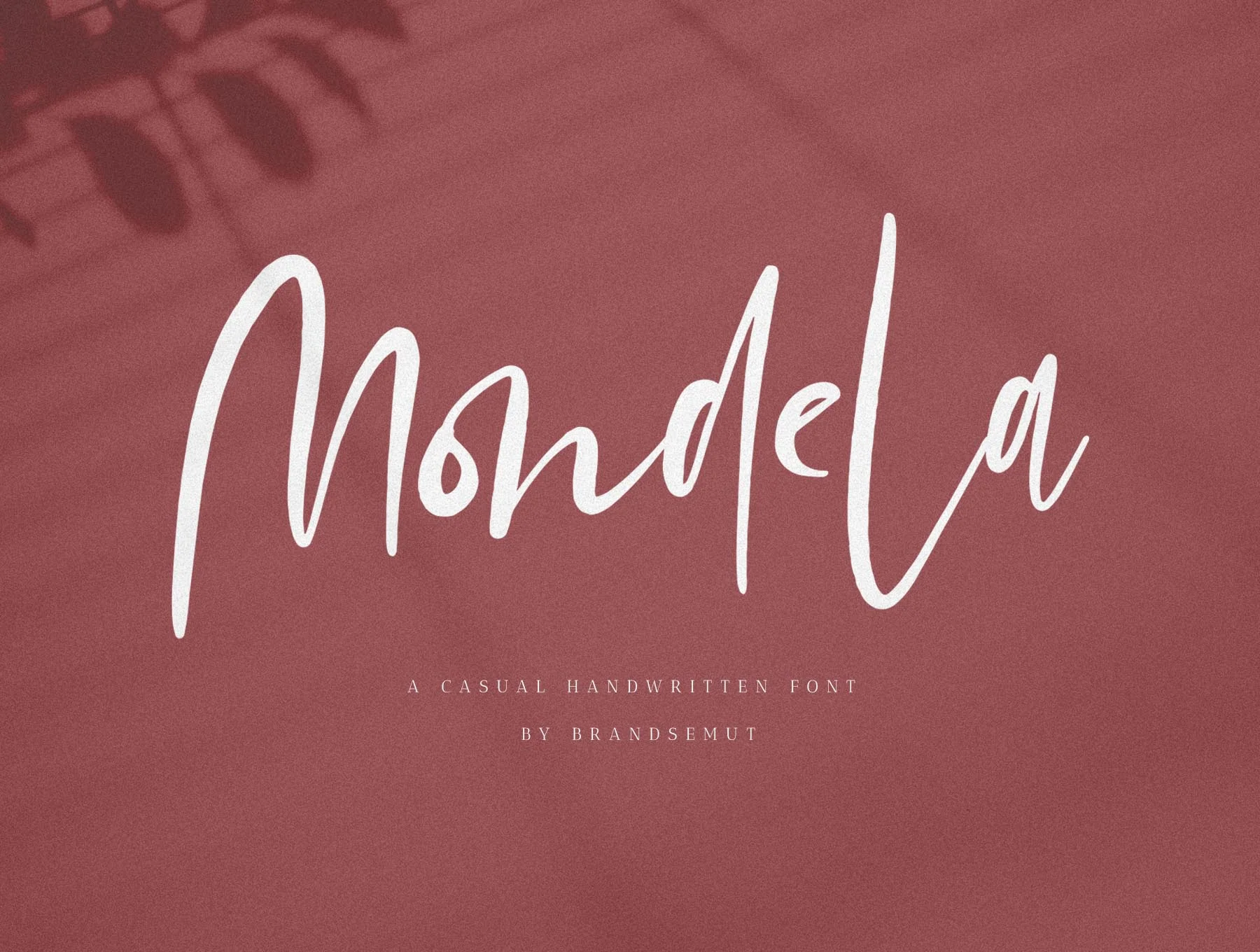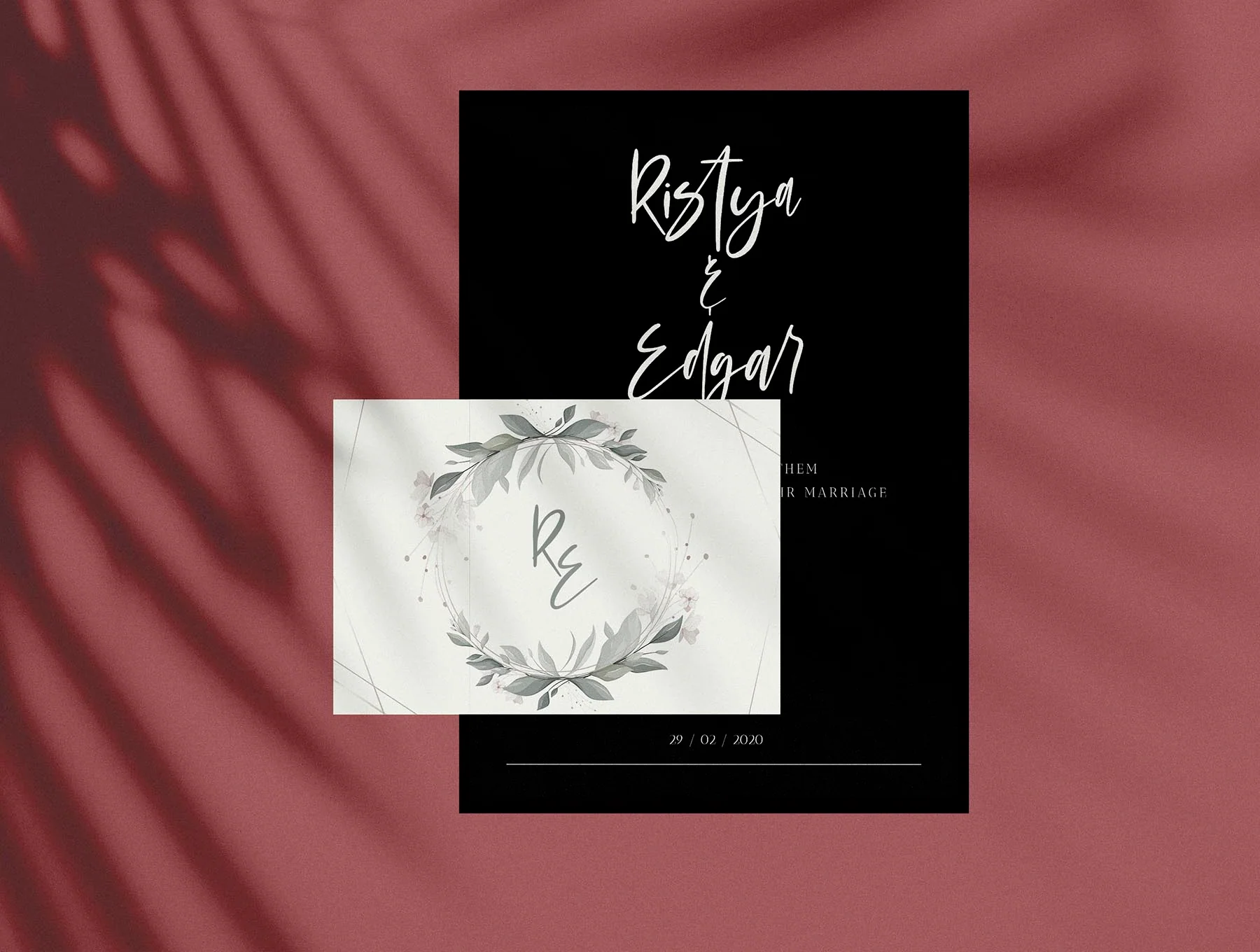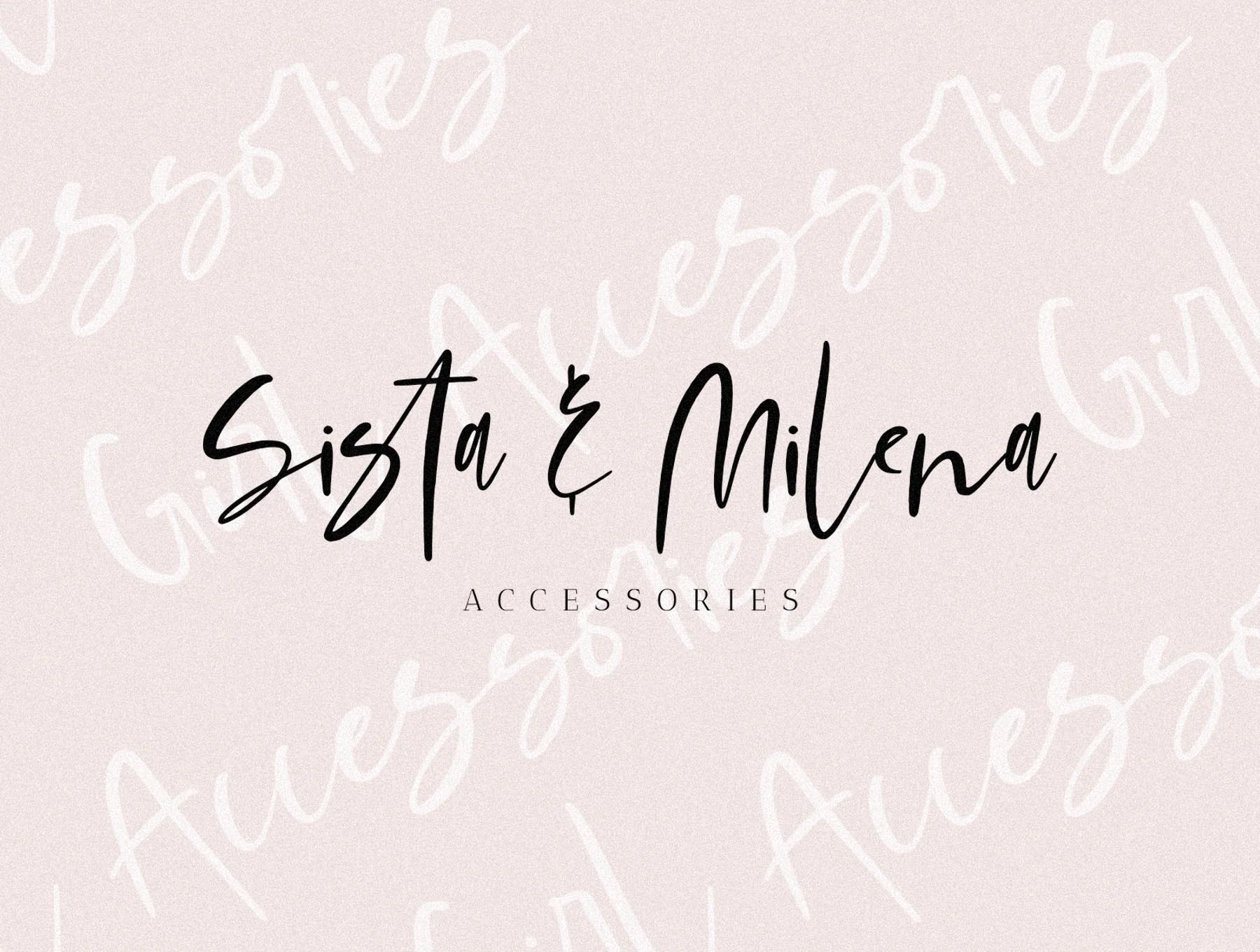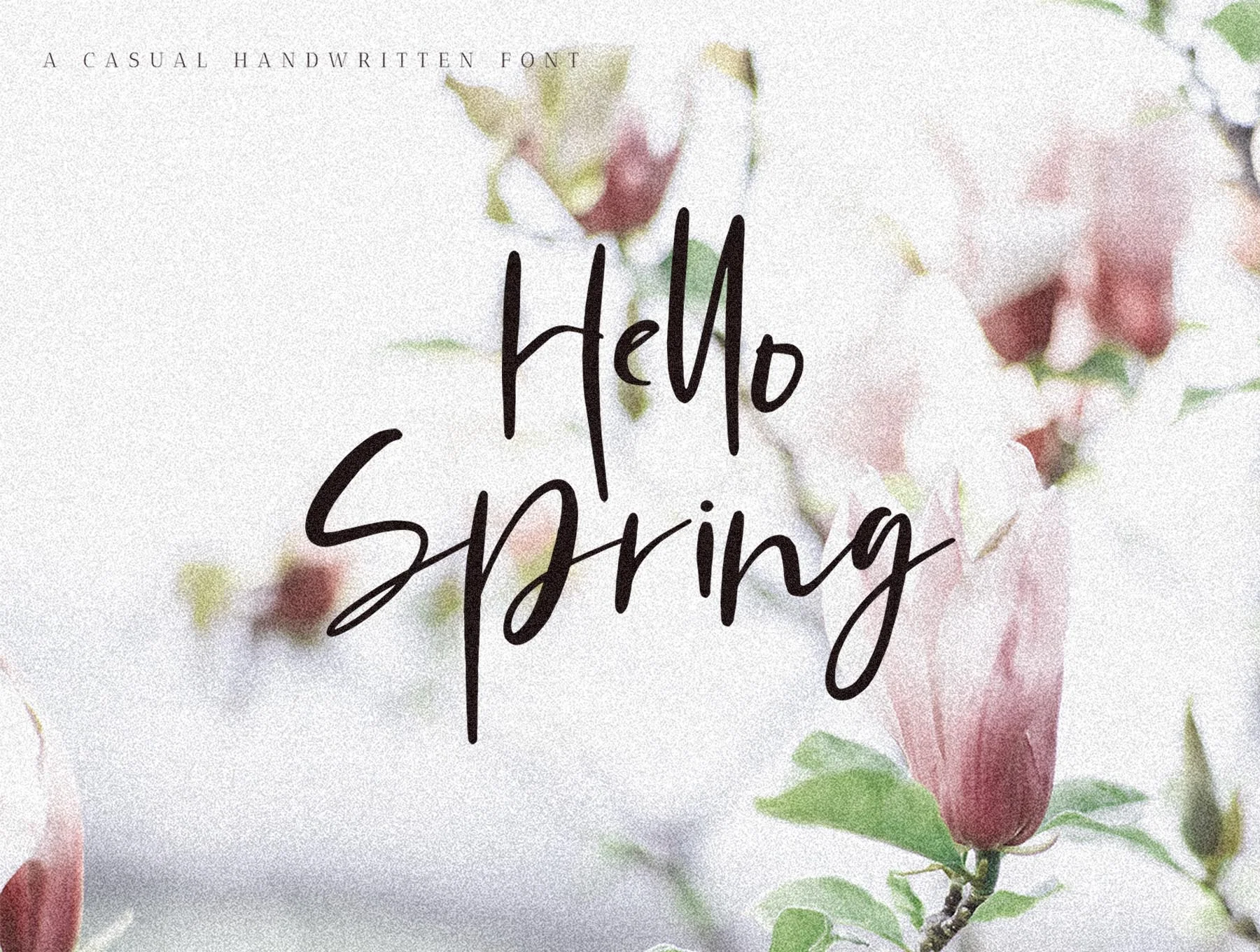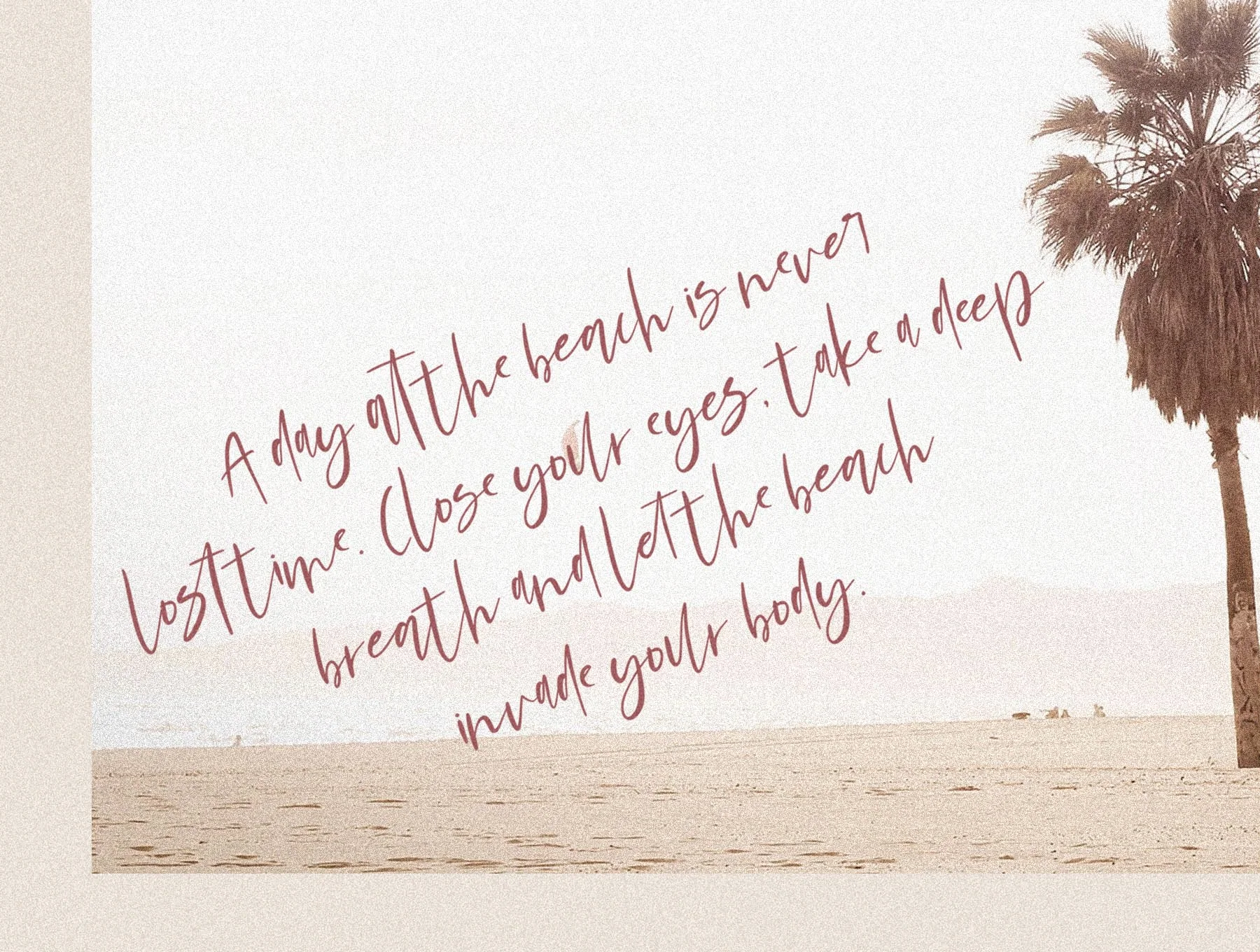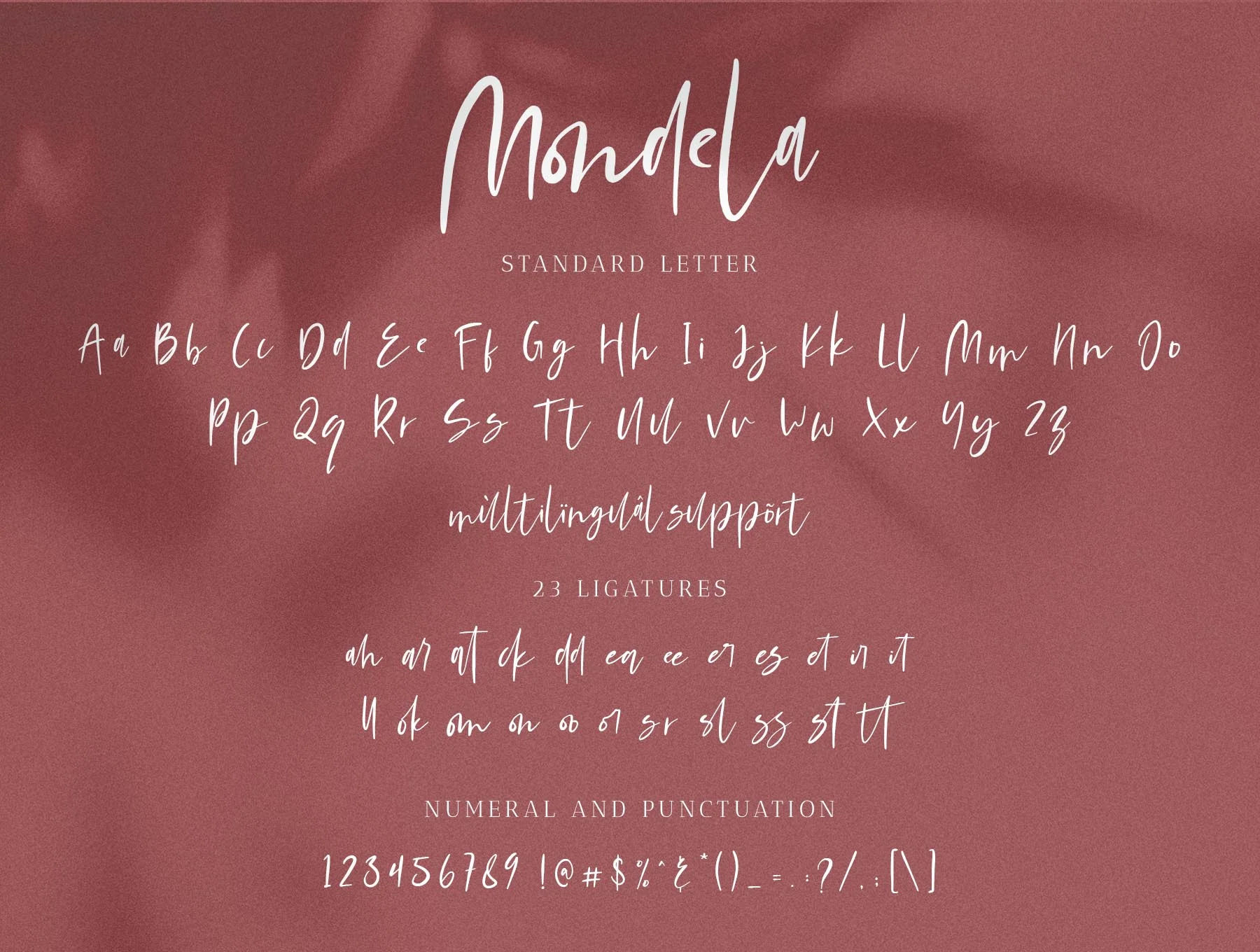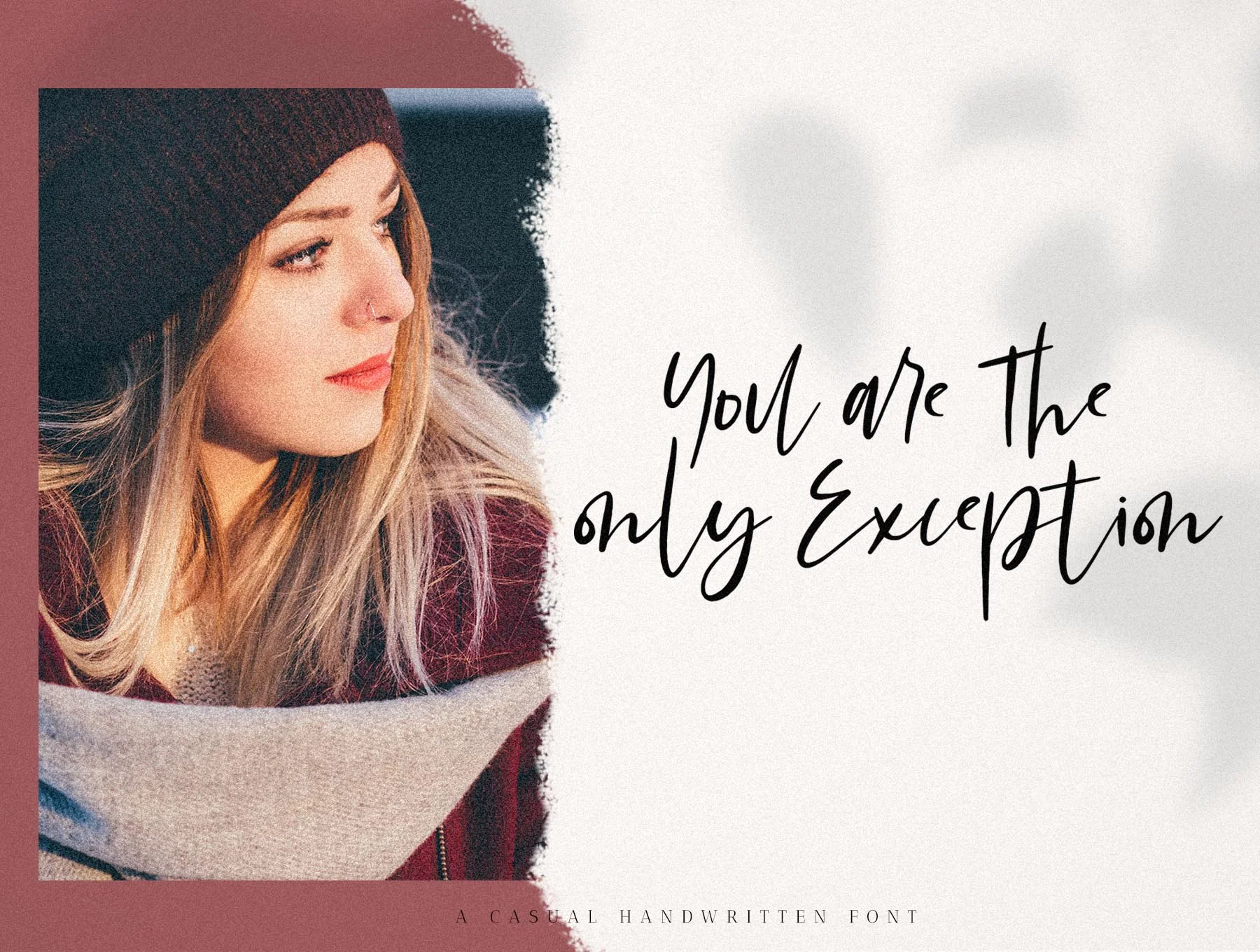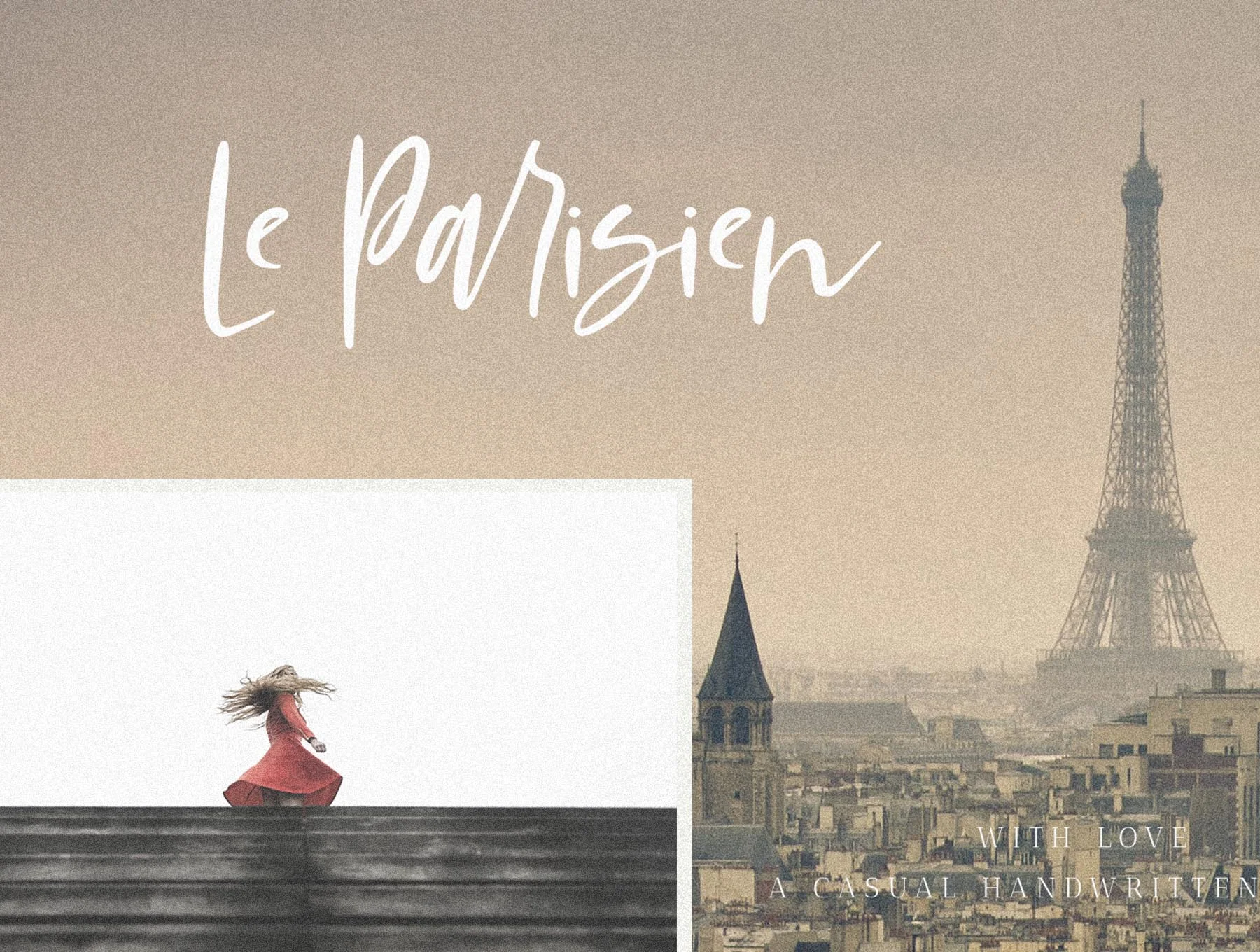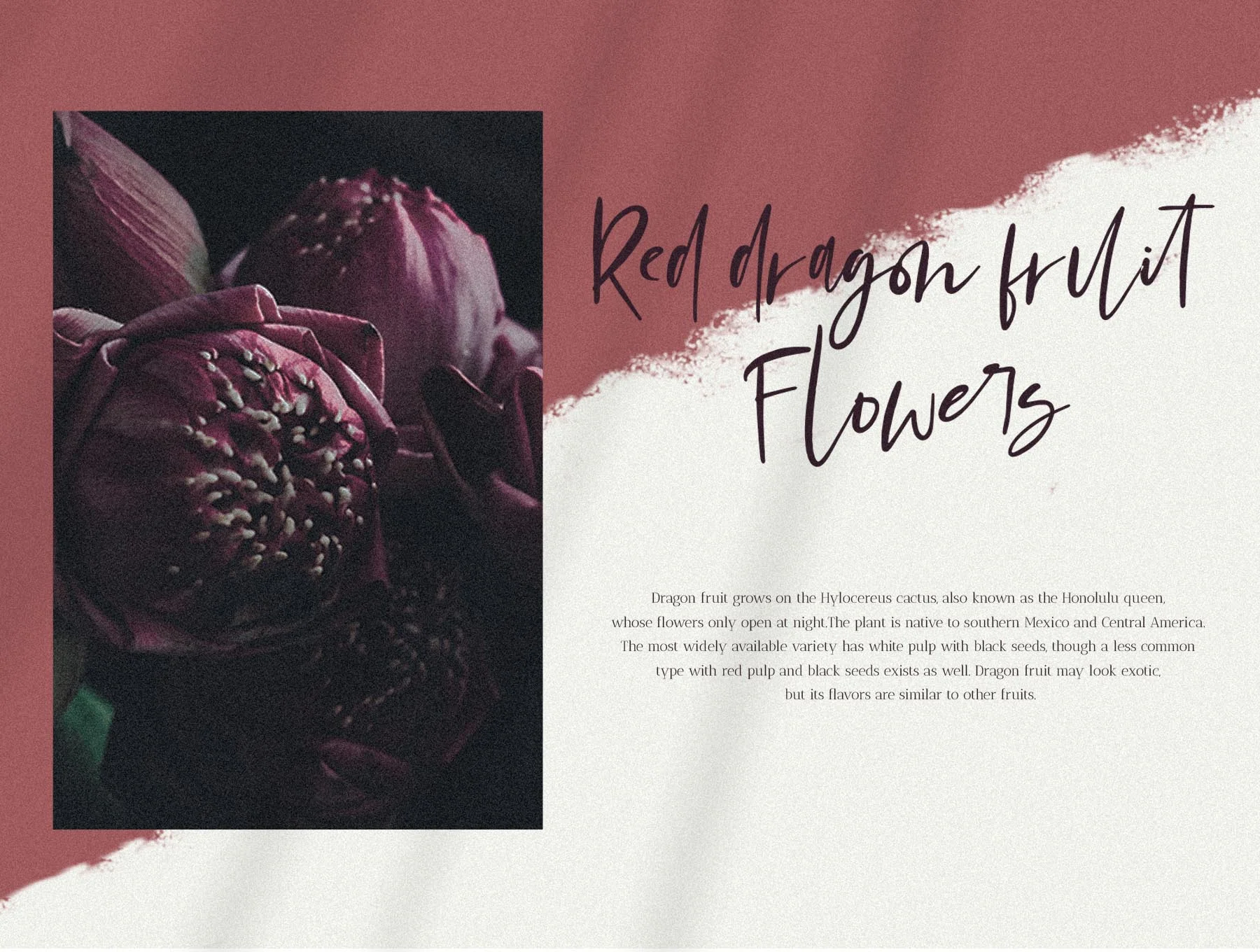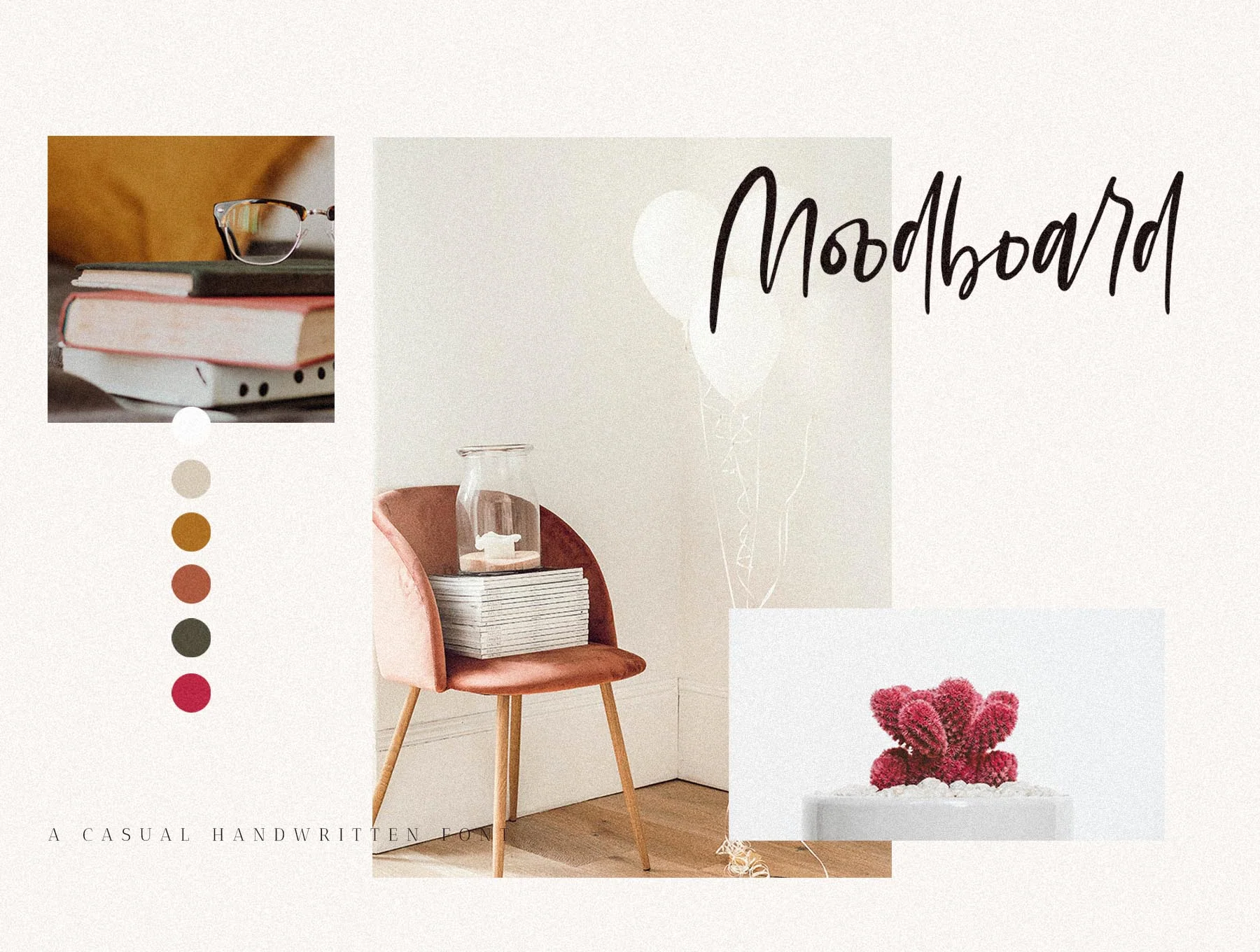
Mondela || Casual Handwritten Font
A Chic, Relaxed Hand-Lettered Font
23 typographic ligatures
Meet Mondela, a relaxed handwritten typeface made to add elegance, style, and a modern feel to your projects. It comes with uppercase and lowercase characters, multilingual glyphs, numbers, punctuation, and 23 ligatures. Great for authentic hand-lettered logos, branding, ads, quotes, headings, and packaging. Includes OTF, TTF, and WOFF files.